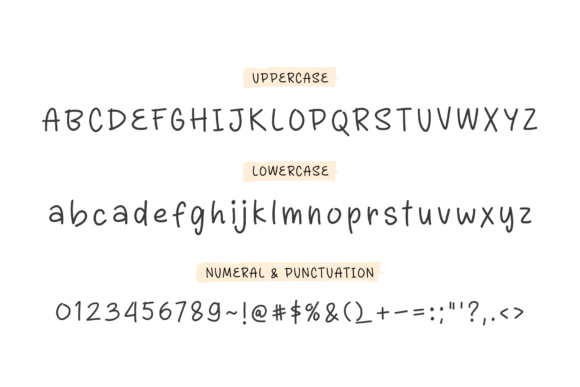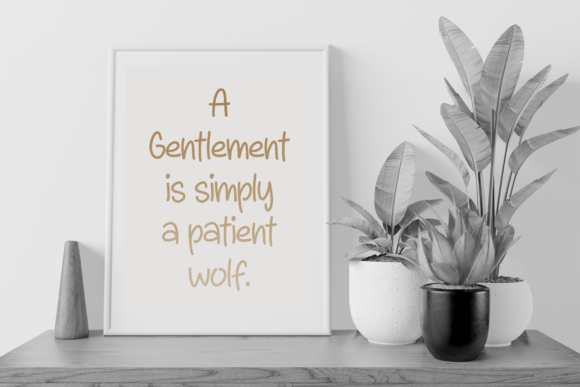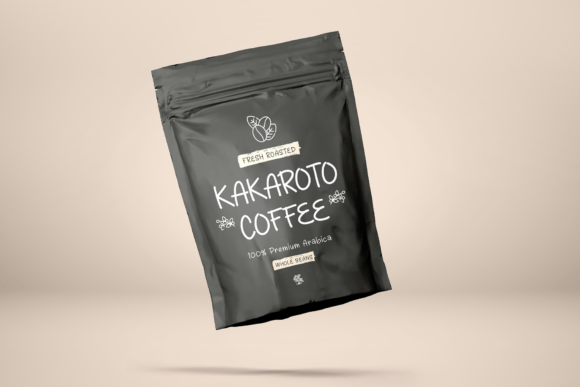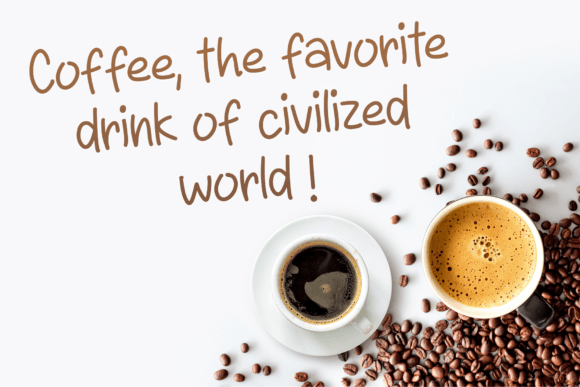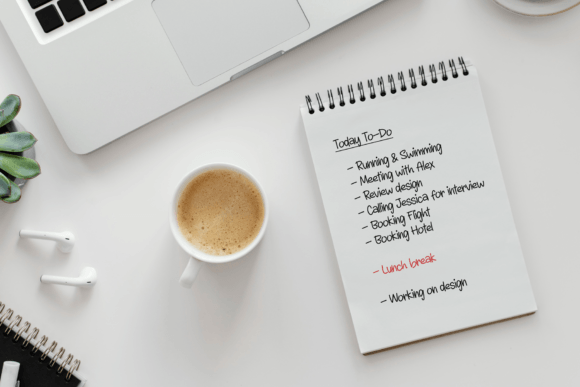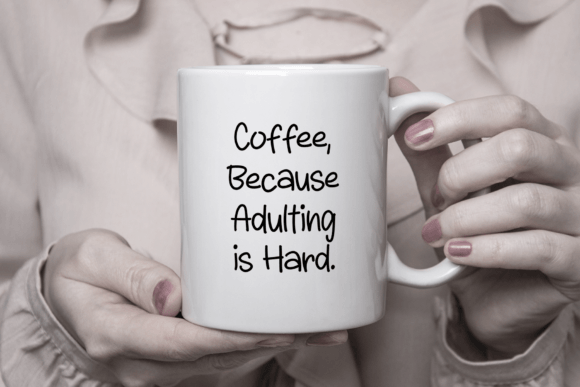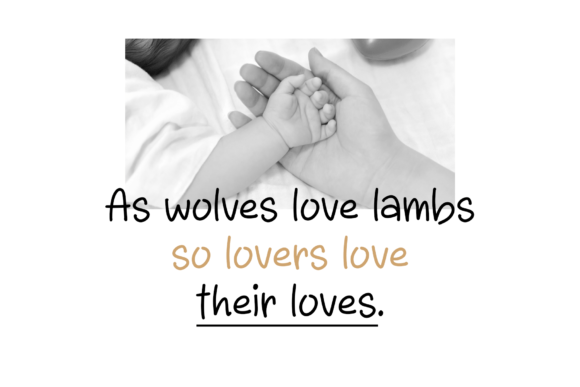
Super Werewolf Font
Super Werewolf Font: A Charming and Playful Handwritten Typeface
Super Werewolf font, a charming and playful handwritten typeface that adds whimsy and personality to your creative projects. This versatile font is perfect for various applications, from headlines and logos to apparel designs and invitations.
Key Features of Super Werewolf Font
• Handwritten Style: Adds a warm, approachable quality to text
• Playful Character: Evokes a sense of cuteness and friendliness
• Versatile Application: Suitable for both casual and elegant designs
• Child-Friendly: Ideal for projects targeting younger audiences
Perfect for Creative and Engaging Projects
Super Werewolf font excels in creating:
• Eye-catching headlines and logotypes
• Charming branding materials
• Playful packaging designs
• Engaging children’s book covers
• Fun social media graphics
Why Choose Super Werewolf Font?
This font’s natural, handcrafted appearance makes it an excellent choice for designers looking to connect with their audience on a personal level. Its whimsical nature resonates well with children, making it perfect for educational materials and products for kids.
Super Werewolf font is more than just a typeface; it’s a tool for bringing charm and playfulness to your designs. Whether you’re working on branding materials, children’s books, or creative layouts, this font will help you create content that truly stands out with its unique style. Add Super Werewolf to your font collection today and experience the transformative power of its charming, playful aesthetic on your creative endeavors. Let this delightful handwritten font be the secret ingredient that takes your designs from good to irresistibly engaging.